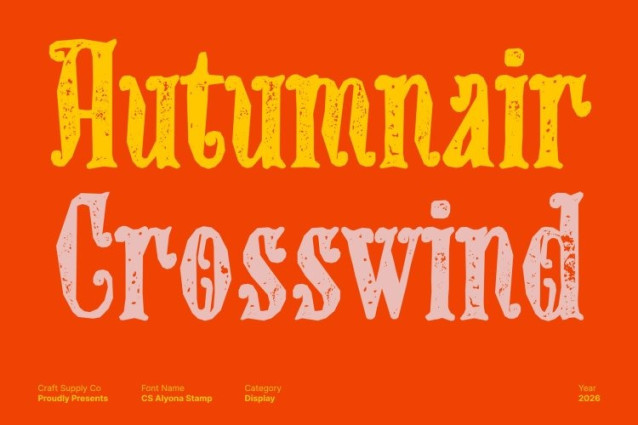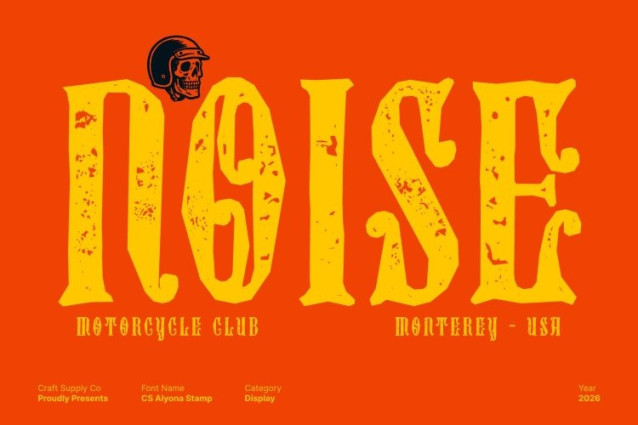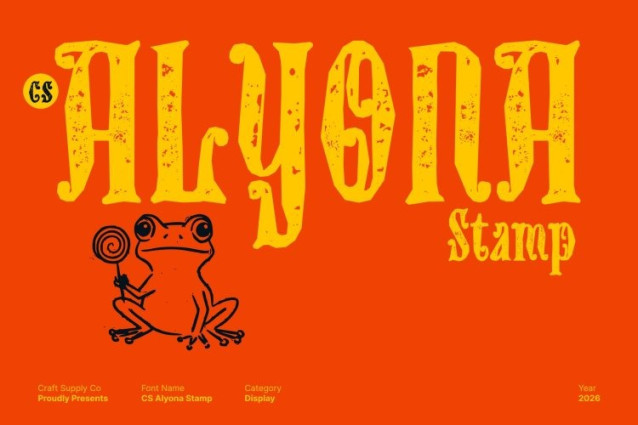
CS Alyona Stamp Font
CS Alyona Stamp Font This is a display serif font rooted in classic Gothic aesthetics, defined by bold strokes, sharp details, and dramatic letterforms. Its commanding presence evokes strength, mystery, and timeless elegance, making it a striking choice for designs that demand attention and authority.
Dramatic Character with Classic Sophistication
The font’s Gothic structure delivers a rich visual intensity, blending traditional ornamental influence with a confident, modern attitude. Each letter feels deliberate and expressive, creating a strong visual rhythm that enhances titles and headlines with a sense of grandeur and intrigue.
Ideal for Historical, Luxurious, and Artistic Themes
This font excels in projects that aim to convey heritage, luxury, or artistic depth. Its elaborate forms are well suited for historical event posters, premium logos, book covers, album artwork, and editorial designs that rely on atmosphere and storytelling.
Stamp Texture for Bold Identity and Vintage Impact
The stamp texture adds subtle roughness and tactile character, reinforcing the font’s handcrafted and classic feel. This detail introduces visual depth and authenticity, making designs feel more expressive, powerful, and memorable.
Dramatic Character with Classic Sophistication
The font’s Gothic structure delivers a rich visual intensity, blending traditional ornamental influence with a confident, modern attitude. Each letter feels deliberate and expressive, creating a strong visual rhythm that enhances titles and headlines with a sense of grandeur and intrigue.
Ideal for Historical, Luxurious, and Artistic Themes
This font excels in projects that aim to convey heritage, luxury, or artistic depth. Its elaborate forms are well suited for historical event posters, premium logos, book covers, album artwork, and editorial designs that rely on atmosphere and storytelling.
Stamp Texture for Bold Identity and Vintage Impact
The stamp texture adds subtle roughness and tactile character, reinforcing the font’s handcrafted and classic feel. This detail introduces visual depth and authenticity, making designs feel more expressive, powerful, and memorable.